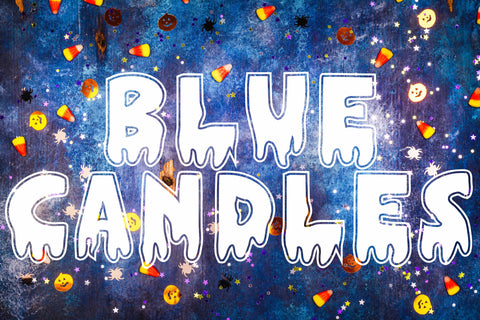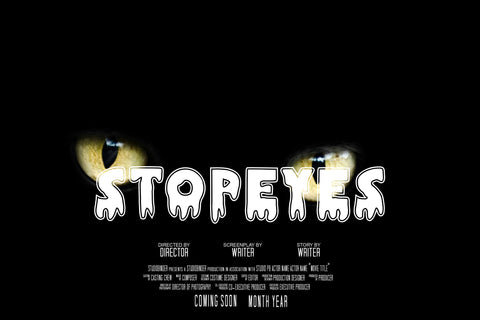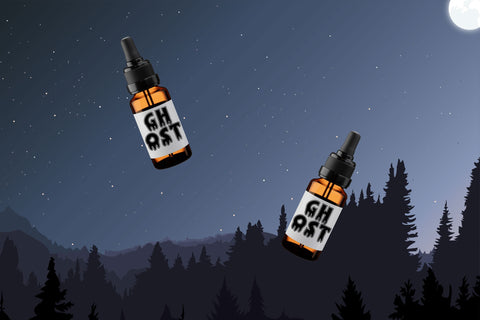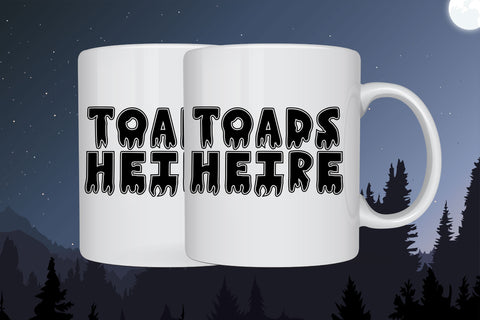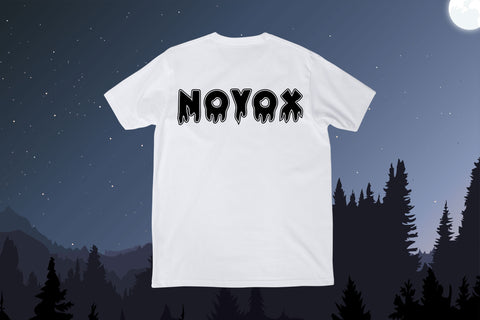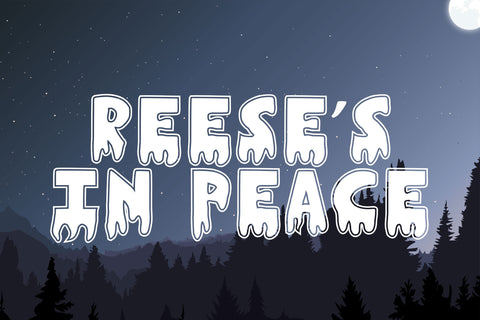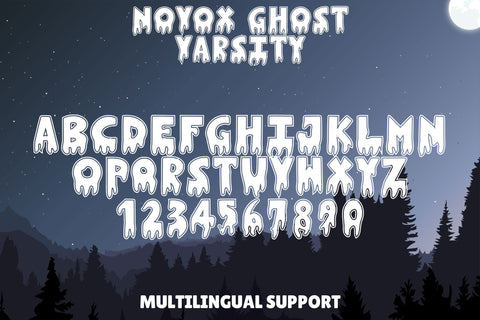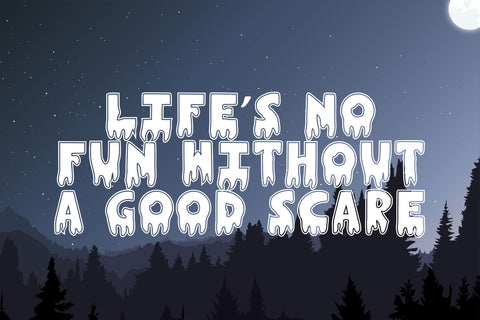
Novox Ghost Varsity
Novox Ghost Varsity – A Spooky Athletic Display Font
Novox Ghost Varsity combines the bone-chilling aura of the original Novox Ghost with the bold, collegiate flair of varsity lettering. This font fuses horror and high school sports aesthetics into a unique typeface that’s both fearsome and spirited. Perfect for Halloween-themed team jerseys, haunted school posters, eerie pep rallies, or any ghostly event with a competitive twist.
Spooky Varsity Style: Classic varsity block letterforms merged with eerie ghostly elements for a chilling impact.
Perfect for Seasonal Events: Ideal for haunted house flyers, creepy banners, spooky sports logos, and Halloween merch.
Eye-Catching Contrast: Bold varsity outlines paired with spectral flair command attention in any design.
Full Character Set: Includes uppercase, lowercase, numerals, punctuation, and multilingual support.